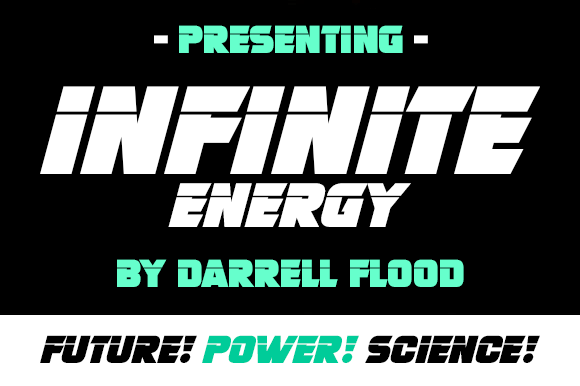
Infinite Energy Font: Modern Style with High Impact
If you're looking to make a bold visual statement, Infinite Energy is a font that delivers. Designed for clarity and impact, it combines sleek lines with an expressive, sliced-through style that captures attention in any setting. Whether you're creating a presentation, designing a logo, or working on a sci-fi themed project, Infinite Energy brings a dynamic flair that stands out without overwhelming the message.
A Font Built for Expression and Clarity
At its core, Infinite Energy is a display fontāmeaning itās ideal for headlines, titles, and other large text elements rather than long paragraphs. Its modern aesthetic features sharp angles and fluid transitions between letters, giving it a futuristic yet approachable feel. The sliced-through design adds depth and movement, making each character pop off the screen or page.
This font is especially well-suited for environments where first impressions matter. Think of a startup pitch deck, a digital poster for a tech event, or even the title card of a YouTube video about renewable energy. In all these cases, Infinite Energy can help you communicate innovation and power effectively.
Who Can Benefit from Using Infinite Energy?
- Marketers who want to create eye-catching ads and social media posts.
- Designers working on branding materials for tech companies or creative agencies.
- Bloggers aiming to add personality to their site headers or article titles.
- Entrepreneurs preparing presentations that need to exude confidence and forward-thinking ideas.
- Educators crafting visually engaging slides for lectures on science, technology, or design.
Where Does Infinite Energy Shine?
Display fonts like Infinite Energy are not one-size-fits-all, but they do have a wide range of suitable applications. Here are some of the most effective ways to use it:
- Tech Presentations: Use Infinite Energy as a headline font when presenting new software, gadgets, or innovations. It conveys progress and precision.
- Sci-Fi Projects: From movie posters to book covers, this font fits perfectly into imaginative, high-energy sci-fi designs.
- Digital Branding: Incorporate it into logos, website headers, or app interfaces to build a modern, energetic brand identity.
- Social Media Graphics: Add impact to Instagram stories, Twitter banners, or Facebook posts with this expressive typeface.
- Printed Materials: While primarily digital, Infinite Energy can also work well in printed formats like flyers or brochures where visual appeal is key.
For example, if youāre launching a mobile app focused on sustainability, using Infinite Energy in your promotional visuals can help highlight the app's innovative nature while keeping the tone professional and readable.
Beginner-Friendly Tips for Getting Started
If you're new to typography or font selection, here are some simple tips to start using Infinite Energy effectively:
- Use it Sparingly: Display fonts are powerful but can become hard to read if overused. Pair Infinite Energy with a clean sans-serif or serif font for body text to maintain balance.
- Experiment with Contrast: Try different background colors or gradients to see what makes the font stand out. A dark background often enhances its boldness.
- Test at Different Sizes: Since itās a display font, test how it looks in various sizesāfrom large headlines to smaller labels.
- Combine with Other Elements: Donāt hesitate to pair it with icons, images, or animations to enhance its visual storytelling potential.
By following these guidelines, even beginners can create compelling designs that leverage the unique qualities of Infinite Energy without falling into common typographic pitfalls.
The Value of Choosing the Right Font
Fonts influence perception more than many realize. A poorly chosen typeface can dilute a message, while the right one can amplify it. Infinite Energy helps users achieve a polished look by offering both artistic expression and readability. It's a great choice for anyone who wants their content to feel cutting-edge and confident.
Its versatility across platformsāfrom websites to printāmakes it valuable for professionals who need consistent branding. Educators might find it useful for student-facing materials that aim to spark curiosity. Bloggers could use it to draw readers in with striking post titles. And small business owners may benefit from its ability to convey innovation in marketing materials.
What Makes Infinite Energy Unique?
Unlike generic sans-serif fonts, Infinite Energy has a distinct personality. The sliced-through effect gives it a sense of motion and modernity, while the overall structure remains stable and legible. This combination allows it to serve both functional and decorative purposes, something not every font achieves so effortlessly.
One standout feature is its adaptability to different color schemes. Whether you're going for a minimalist black-and-white layout or a vibrant multi-color theme, Infinite Energy maintains its elegance and presence. This makes it a favorite among designers who prioritize aesthetics without sacrificing usability.
Whether you're a seasoned designer or someone experimenting with fonts for the first time, Infinite Energy provides a powerful tool to express your ideas in a visually compelling way. As with any font, the key is to use it thoughtfully and intentionally to create designs that resonate and engage.